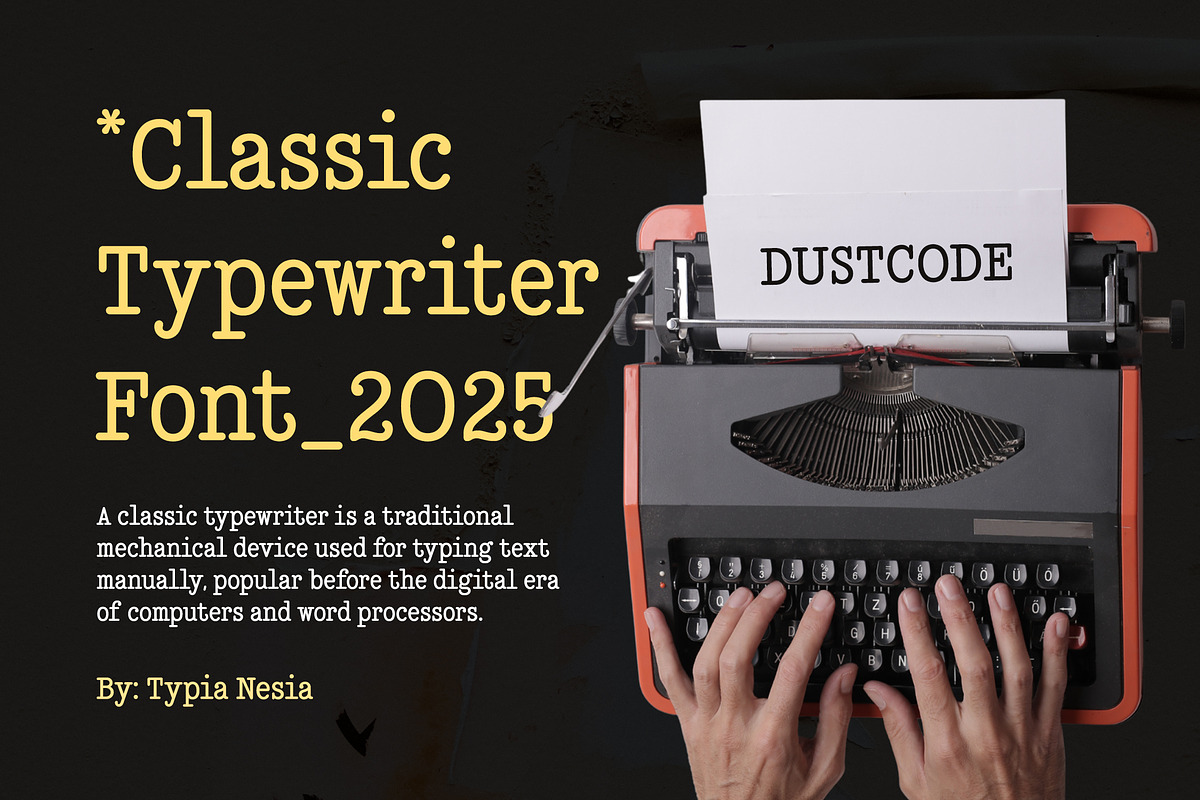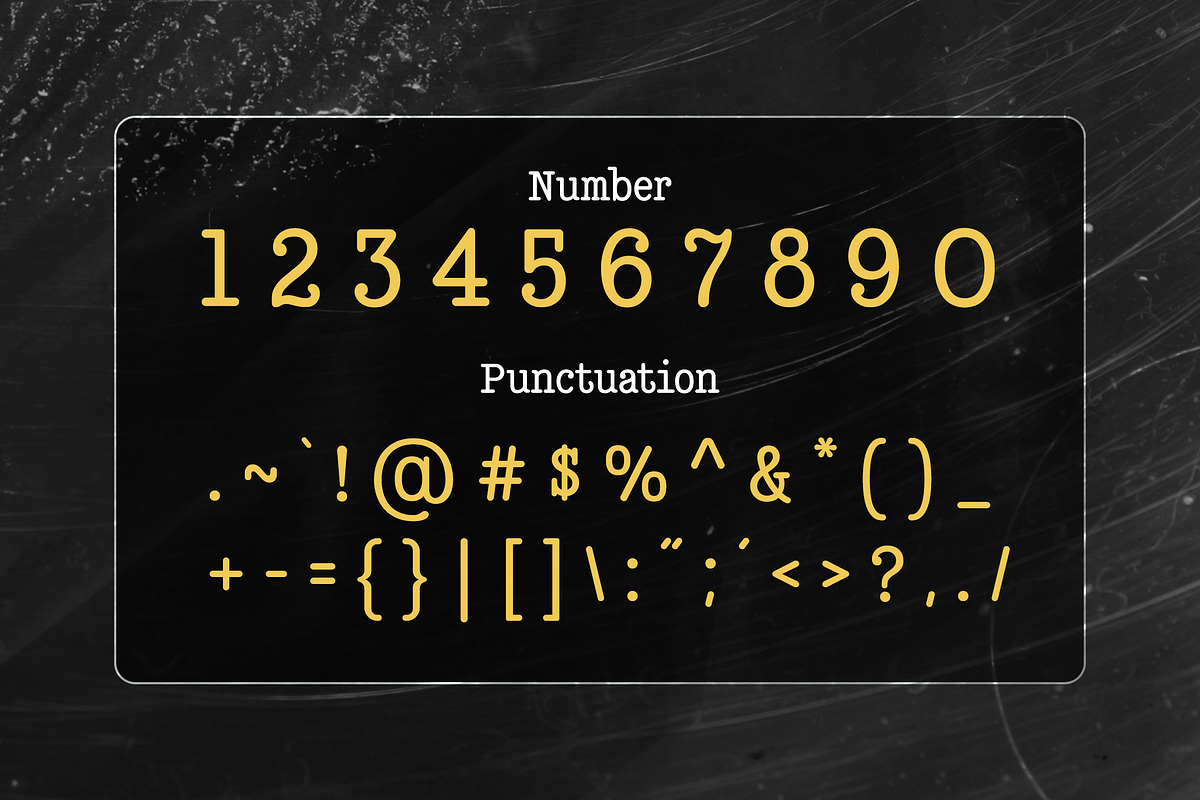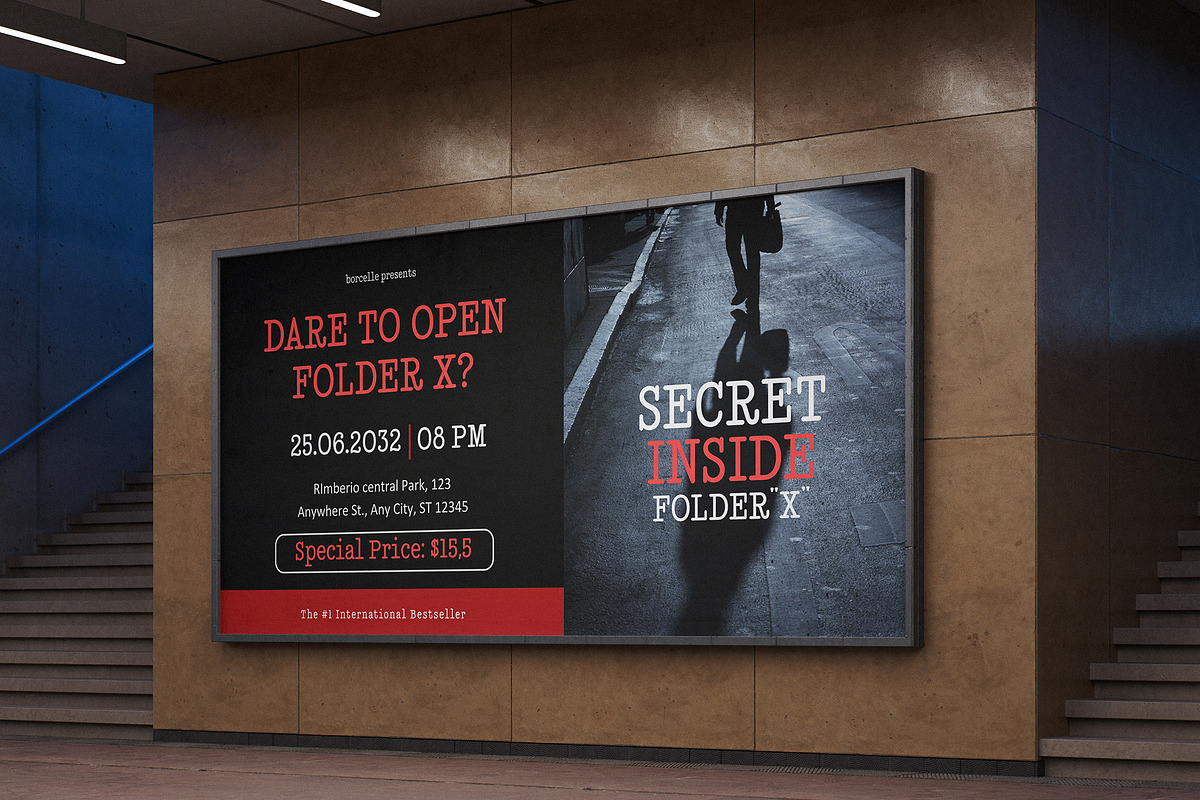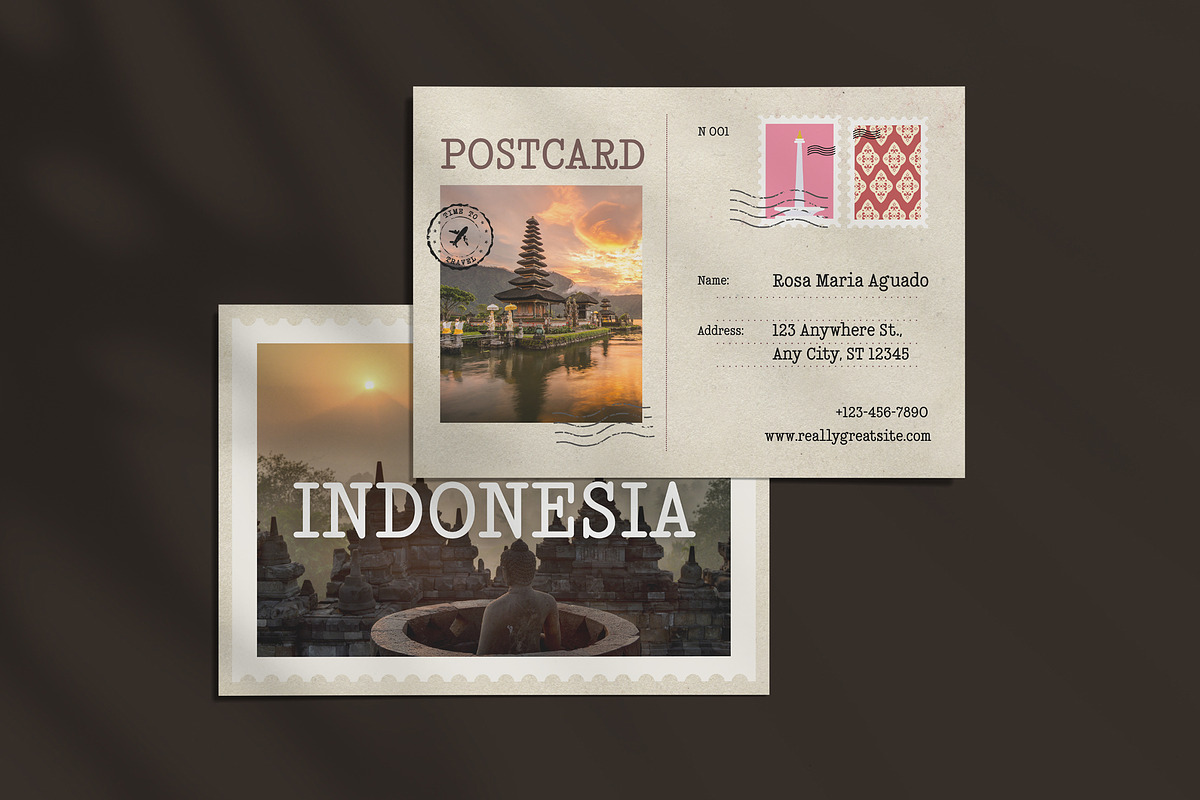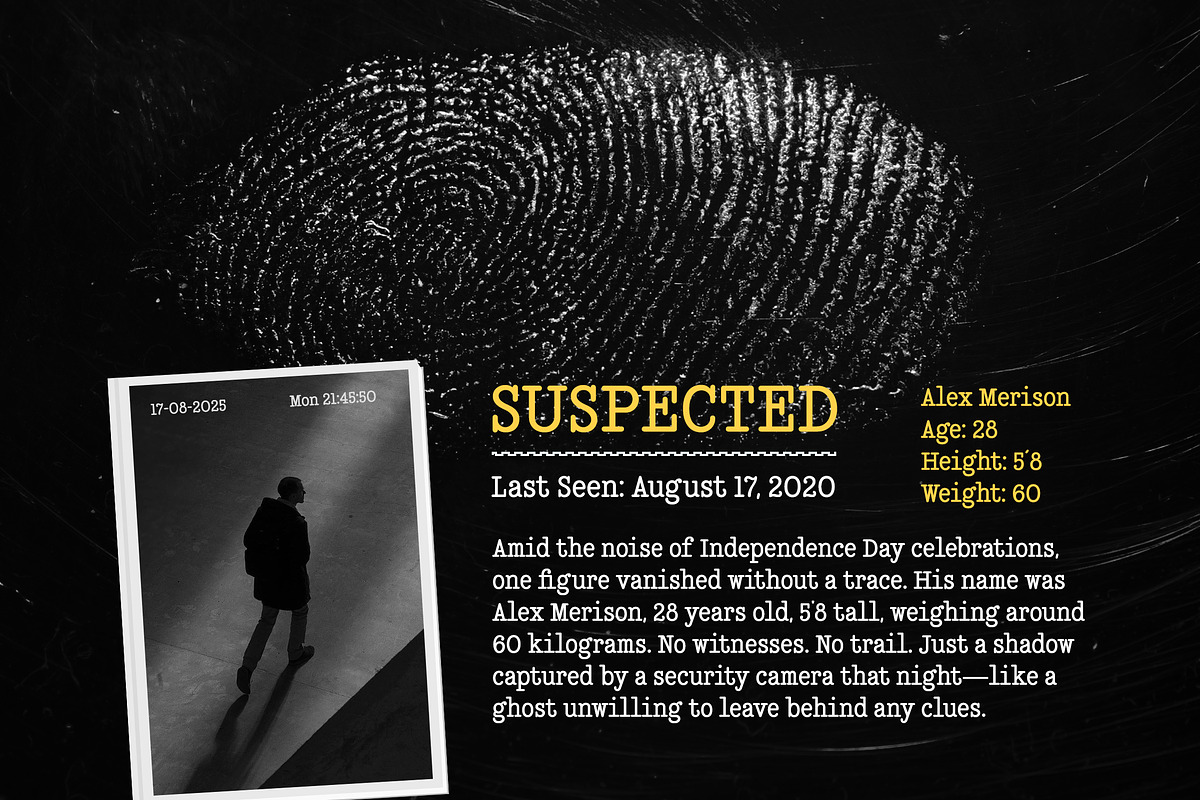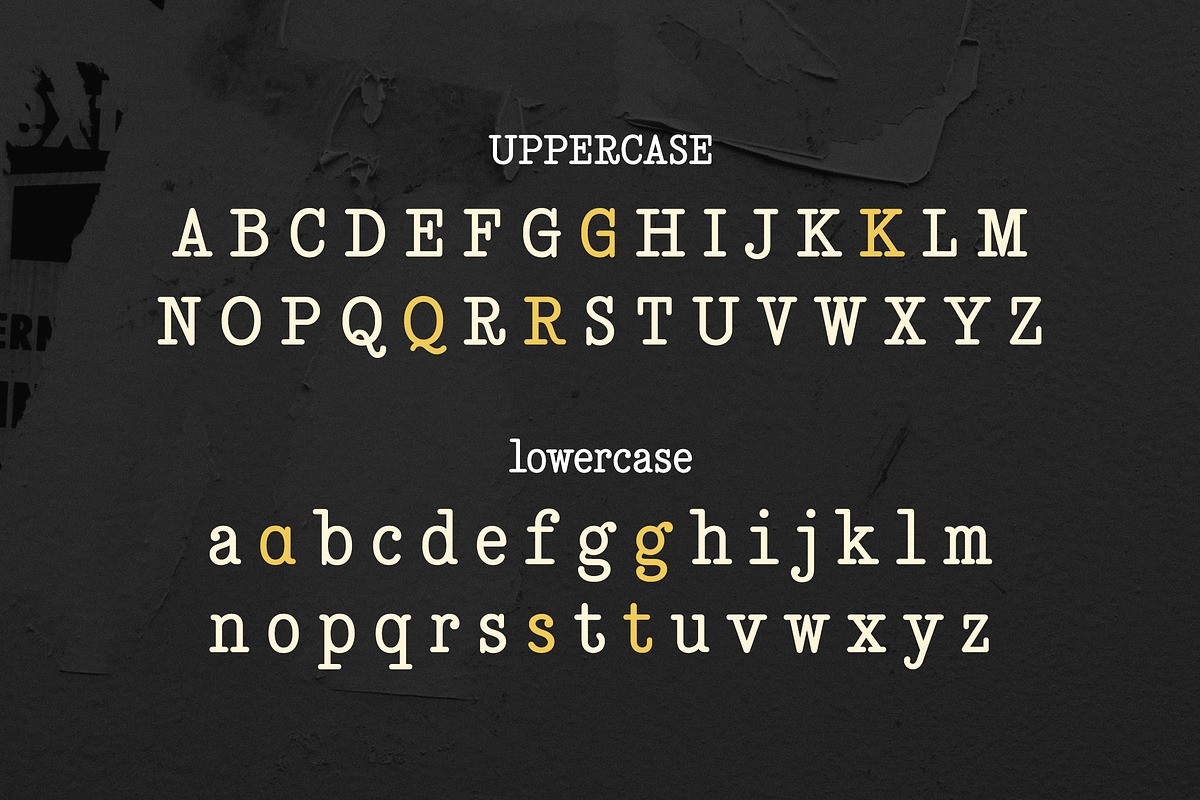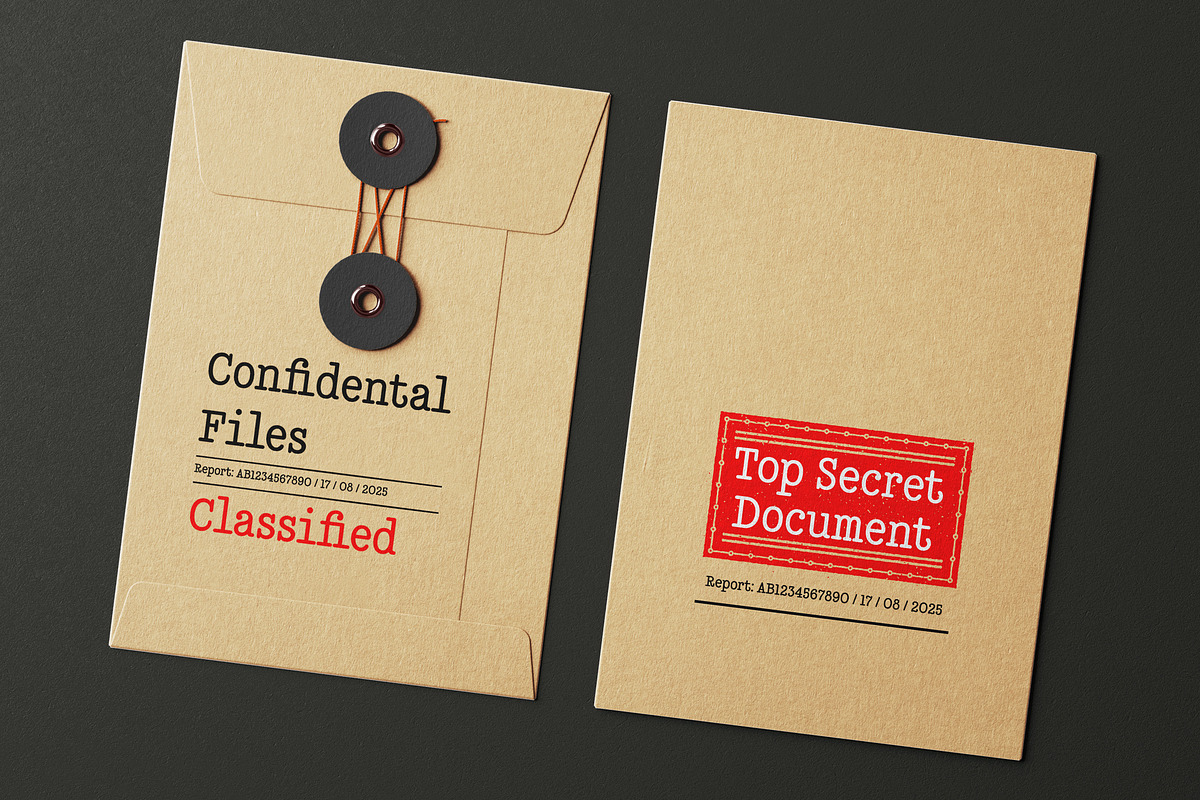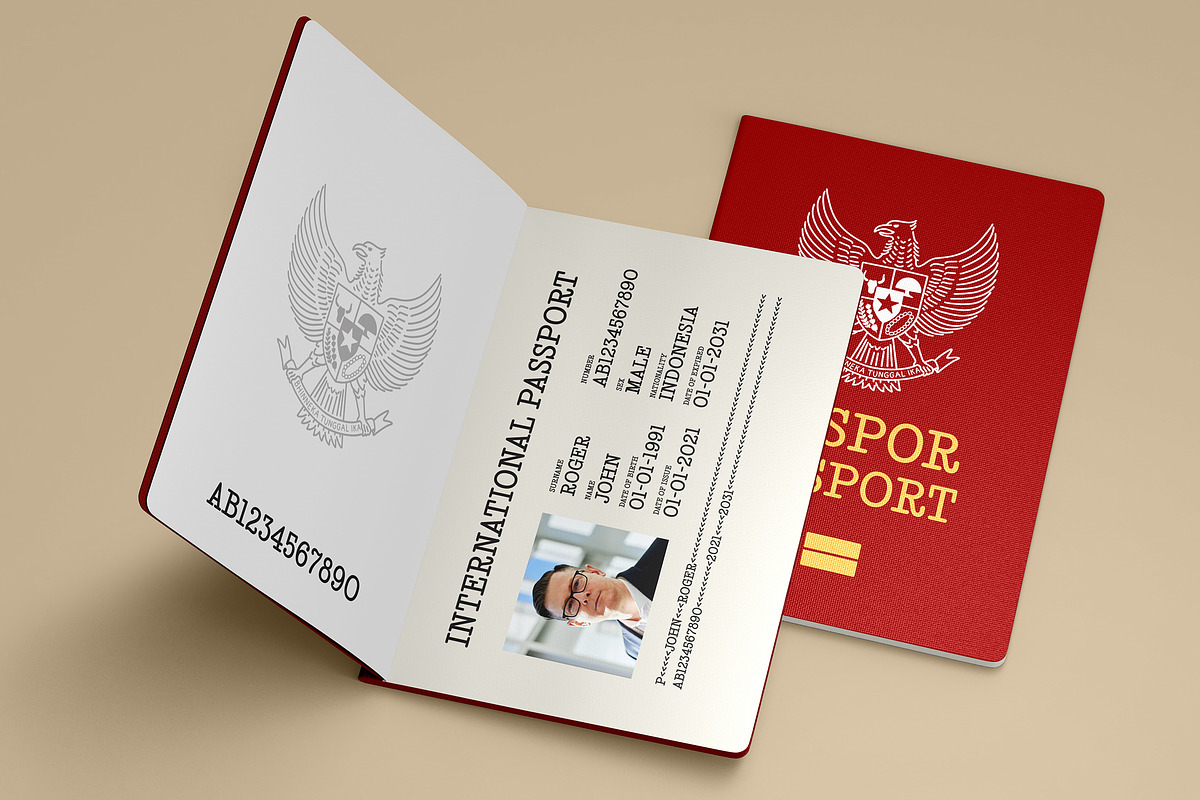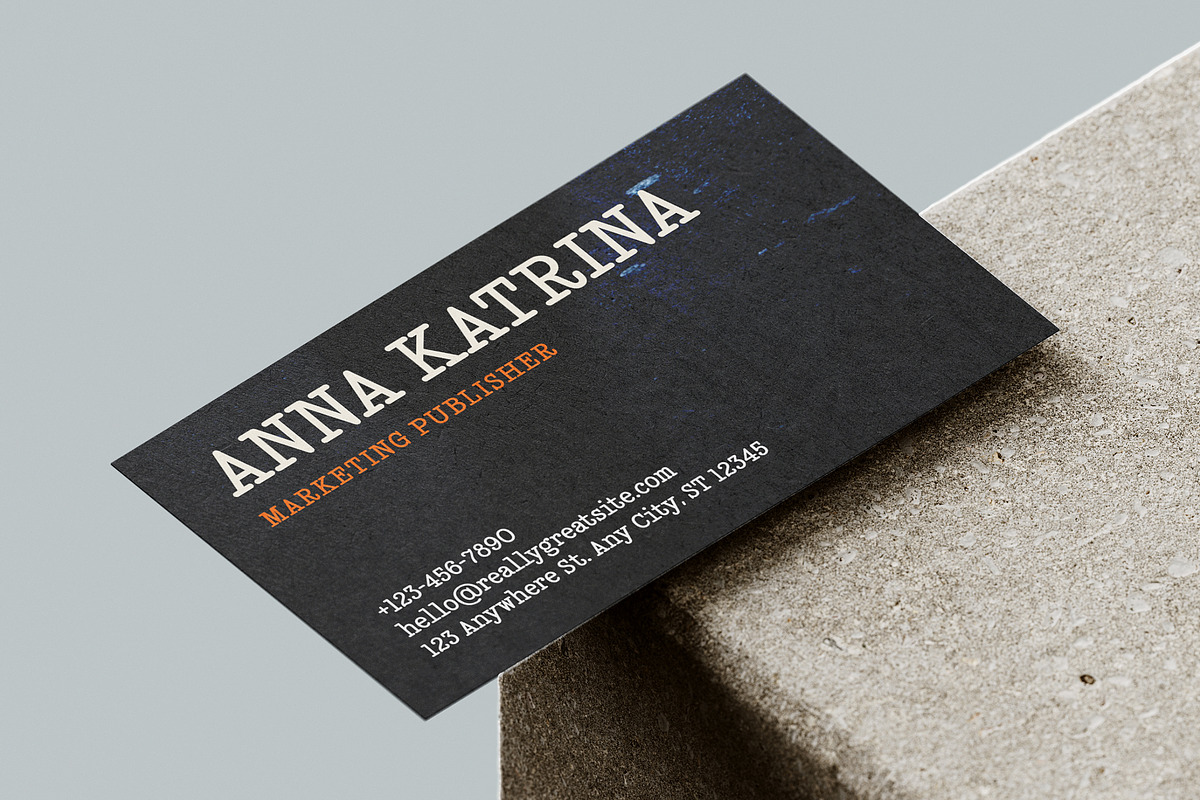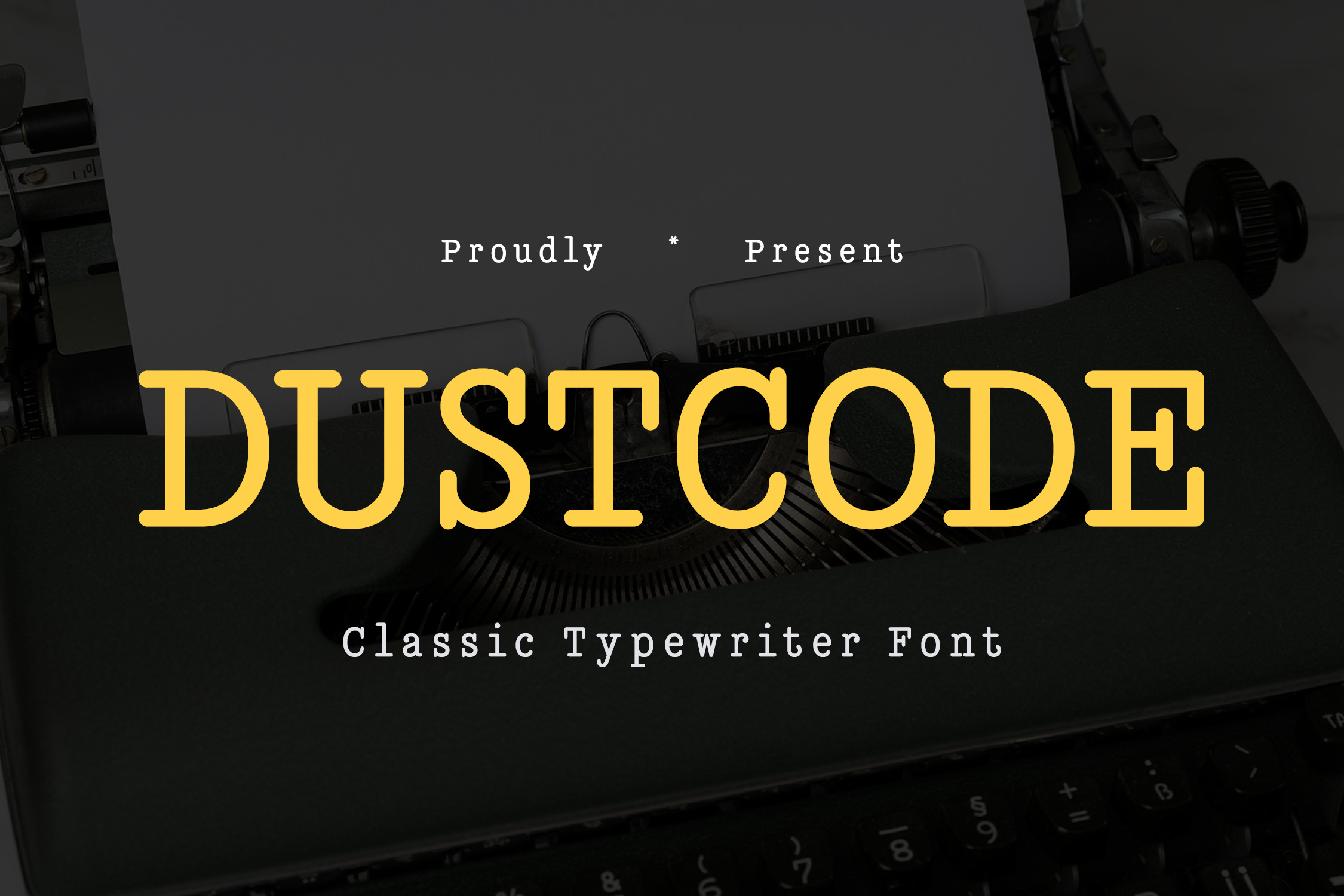
Dustcode - Classic Typewriter Font
Dustcode - Classic Typewriter Font - Modern Retro Vintage Display Font
Dustcode is a classic typewriter font with a touch of grunge, perfect for adding an authentic vintage and retro feel to your projects, such as book covers, postcards, posters, headlines, branding projects, magazines, Logos, confidential document-themed designs and any project that requires a sense of unique, old-school charm that stands out. Inspired by the traditional mechanical typewriters of the past and comes with full uppercase and lowercase alphabets, numbers, and punctuation, making it versatile for all your creative needs. Whether you're creating a bold statement or a subtle nod to the past, Dustcode provides the perfect blend of classic elegance and modern grit.